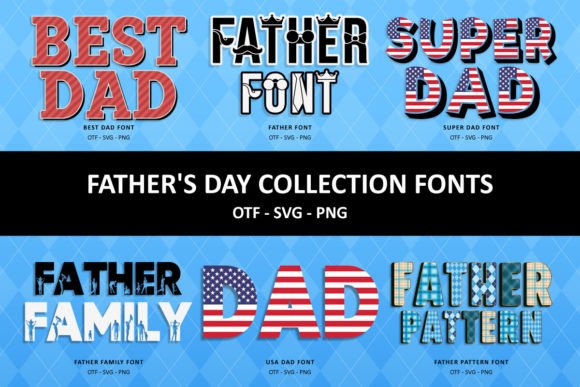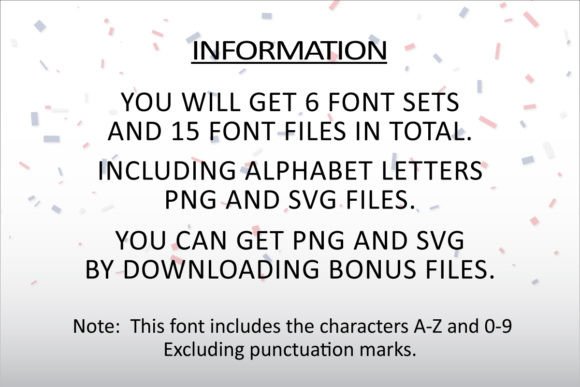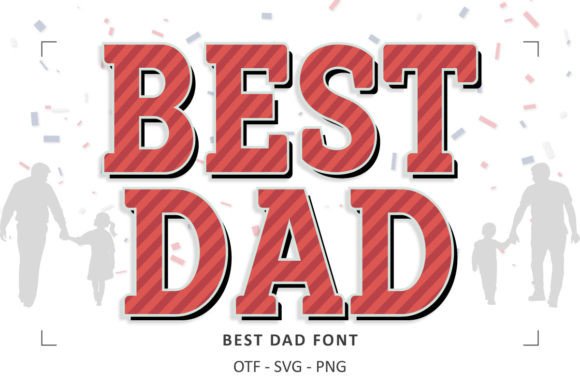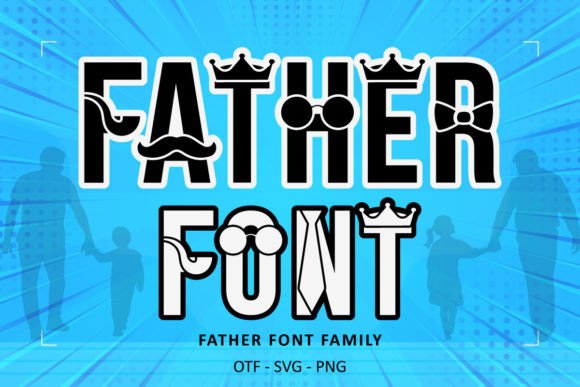
Father’s Day Collection Font
About the Father’s Day Collection Font
Introducing the Father’s Day Collection Font, a beautifully crafted typeface designed to elevate your creative projects. Father’s Day Collection Font gathers 15 eye-catching fonts, covering all your crafting needs for Father’s Day-themed projects. With this bundle, you can create a variety of projects from greeting cards, invitations, social media posts, logos, and so much more!
This collection excels in headline use, short-form text for logos and branding, and crafting eye-catching social media graphics. Its bold and slightly playful nature makes it ideal for projects aiming for a strong, approachable feel. Avoid using it for large blocks of body text or UI elements where high readability is paramount; the decorative elements might compromise legibility.
For optimal pairings, consider complementing the bolder fonts within the collection with clean sans-serif fonts like Open Sans or Lato for body copy. More elegant styles in the collection could be balanced by a classic serif like Garamond or a modern geometric sans-serif like Montserrat. Scripts can add a touch of refined personality when paired selectively with some of the collection’s more structured fonts.
The overall personality is best described as friendly yet strong, making it suitable for brands targeting a mature audience that values quality and approachability. It evokes feelings of tradition and reliability, without being overly stuffy or formal.